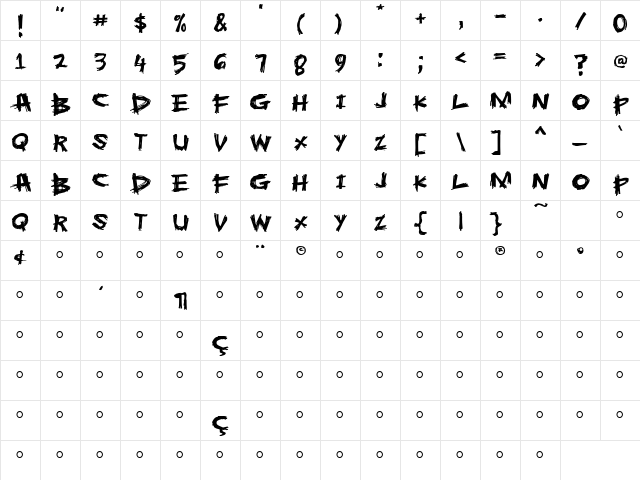
Ashyhouse Regular
Design Context for Ashyhouse Typeface
Ashyhouse is a composed and adaptable typeface that performs quietly and consistently across a wide range of design contexts.